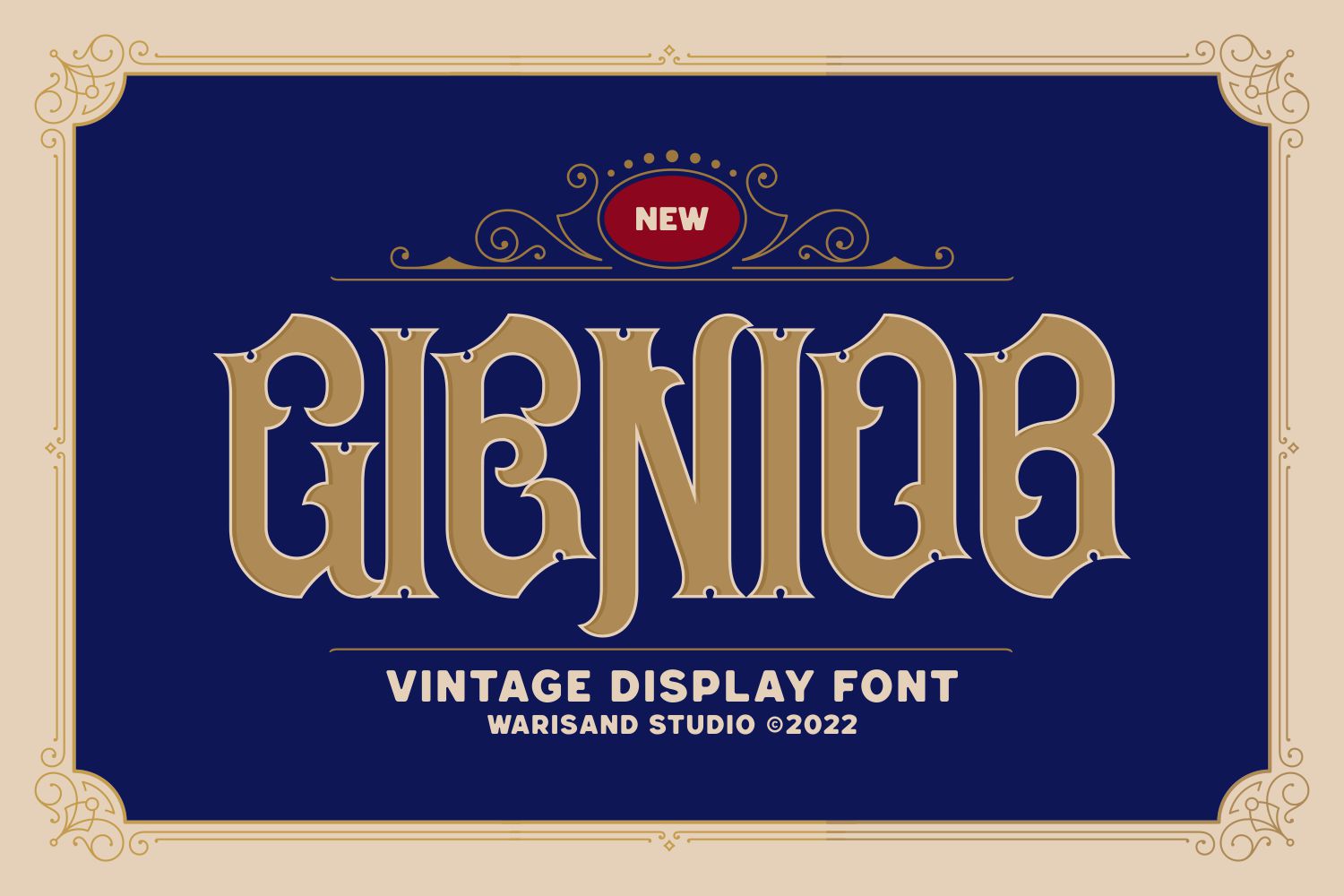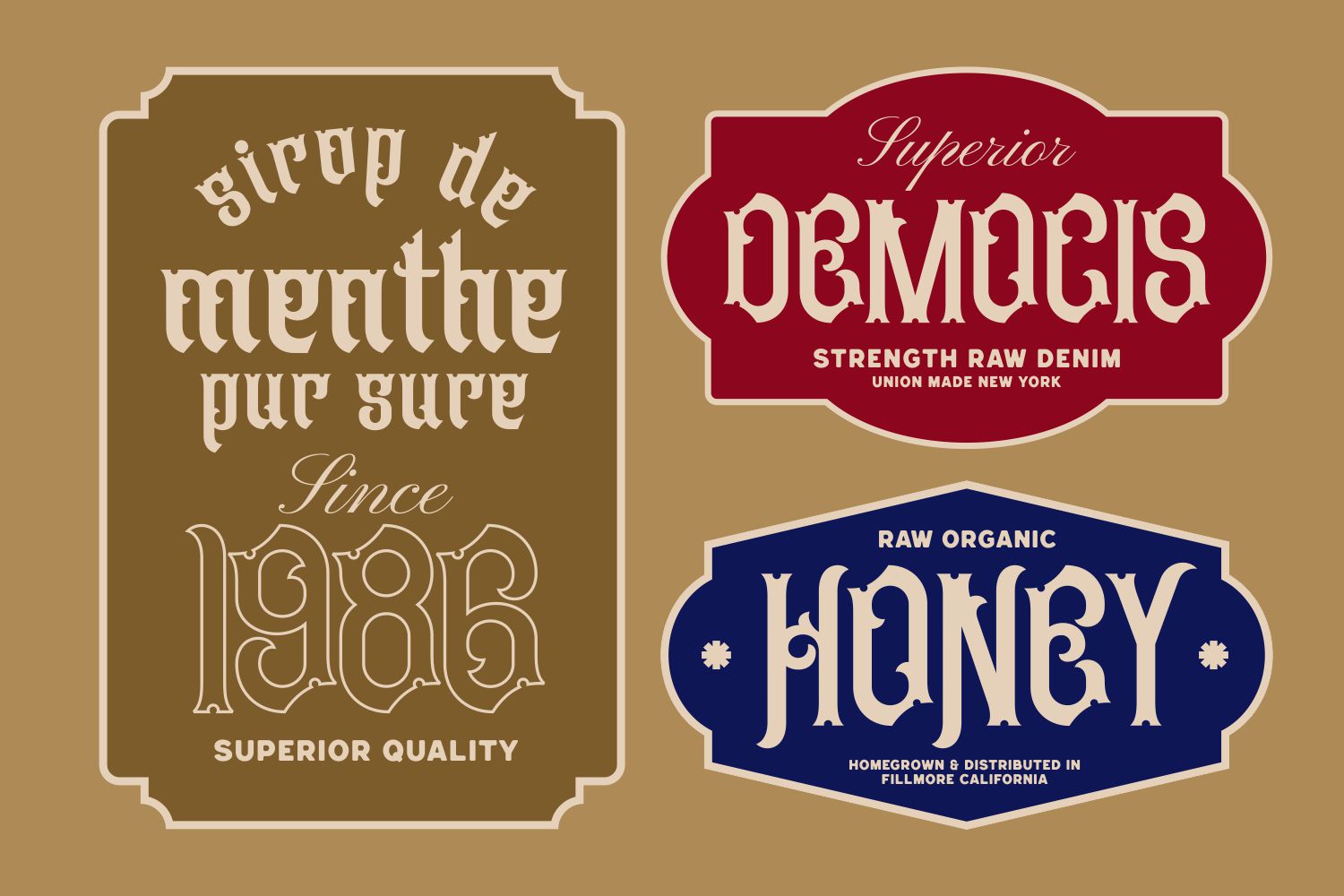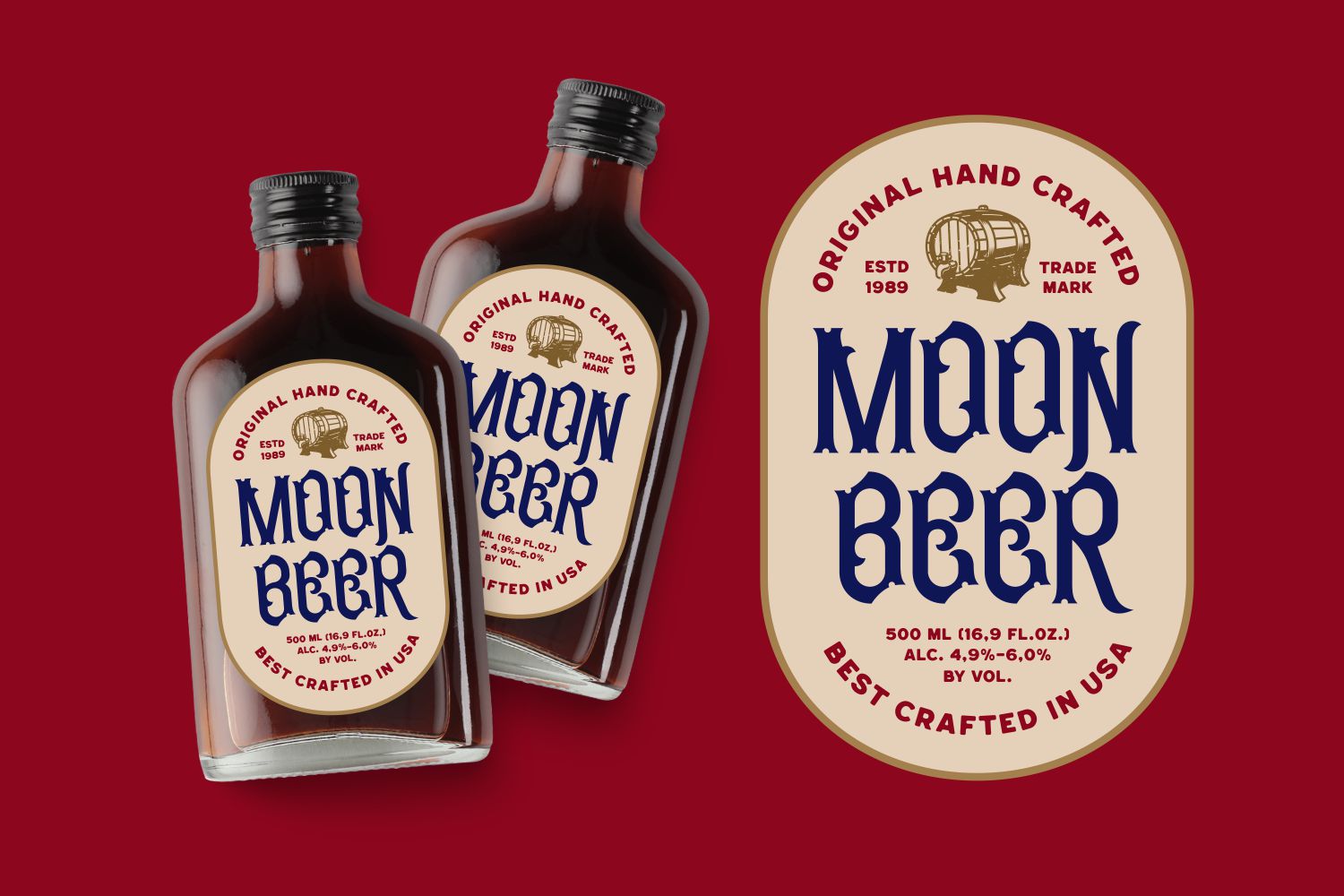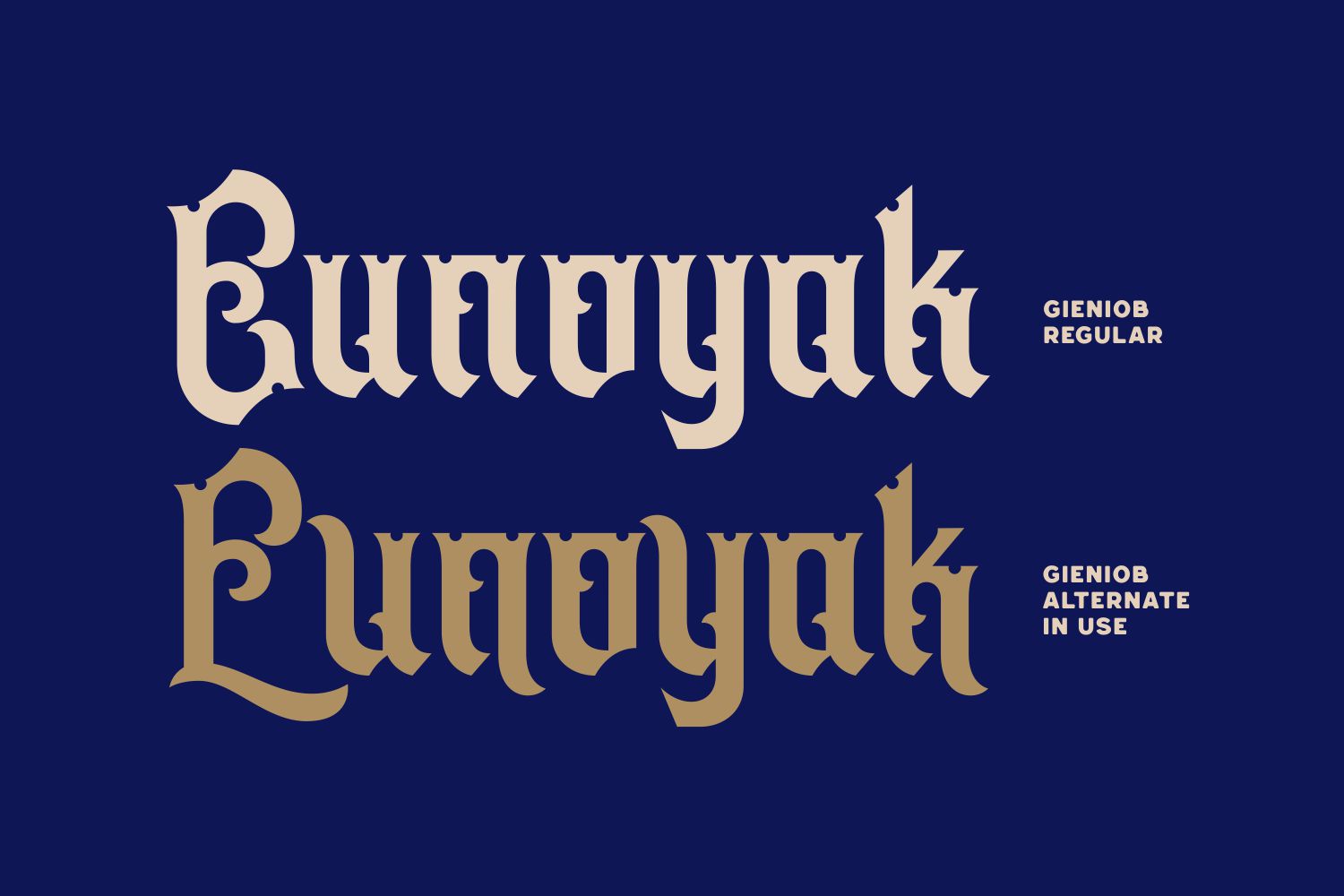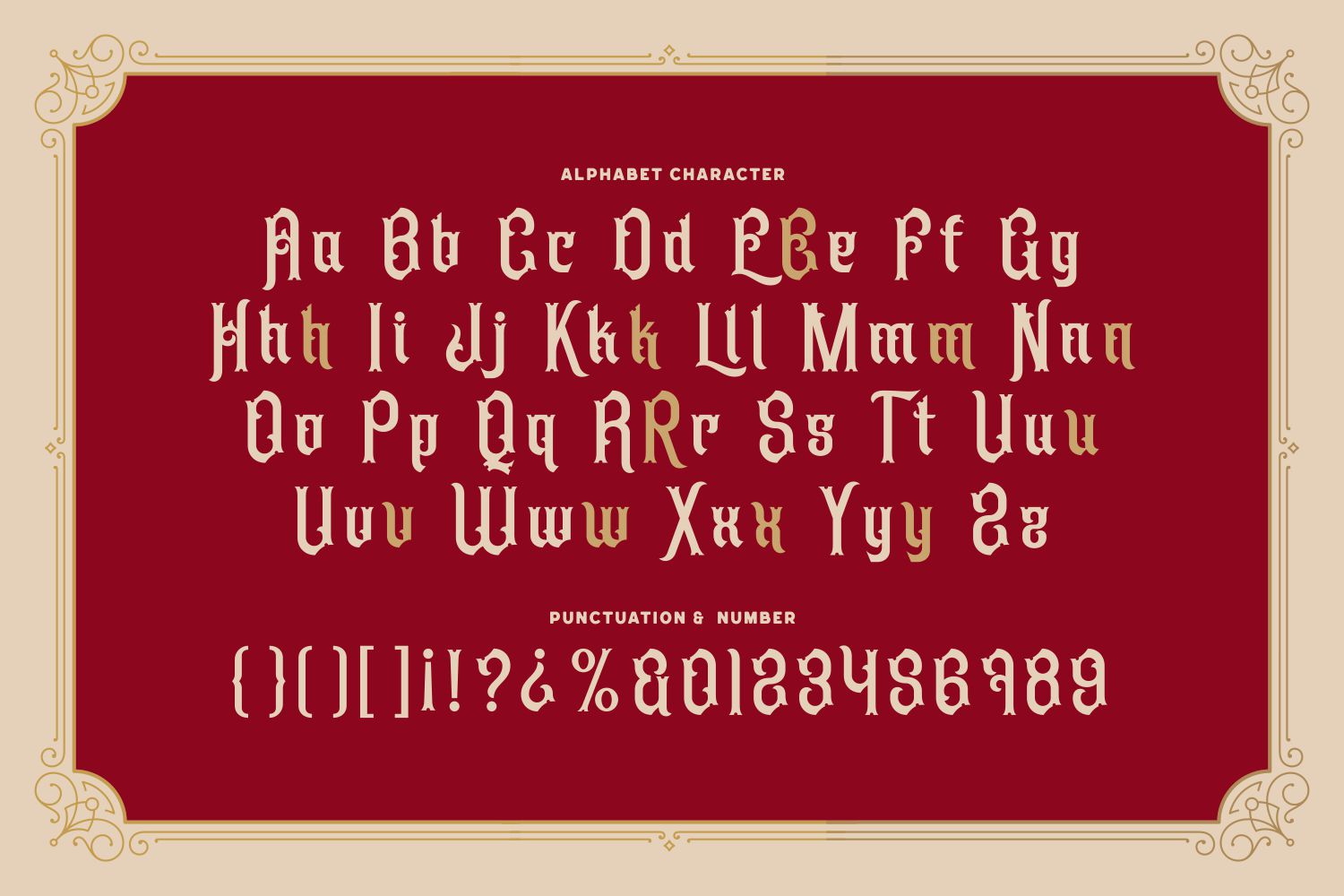
Gieniob is a bold and decorative blackletter-inspired vintage display font with a dramatic and stylized aesthetic. Designed with sharp gothic curves, playful terminals, and elegant alternates, Gieniob brings historical charm into contemporary design. It includes uppercase, lowercase, numerals, punctuation, and alternate glyphs to offer flexible typographic compositions for branding, label design, and product packaging.
Perfect for beer labels, denim tags, artisan food branding, and vintage-style signage, Gieniob delivers both edge and elegance. Its gothic heritage blended with a modern structure makes it ideal for projects that aim to be expressive, nostalgic, and unforgettable. With its striking look and versatility, Gieniob is ready to elevate your next visual creation.